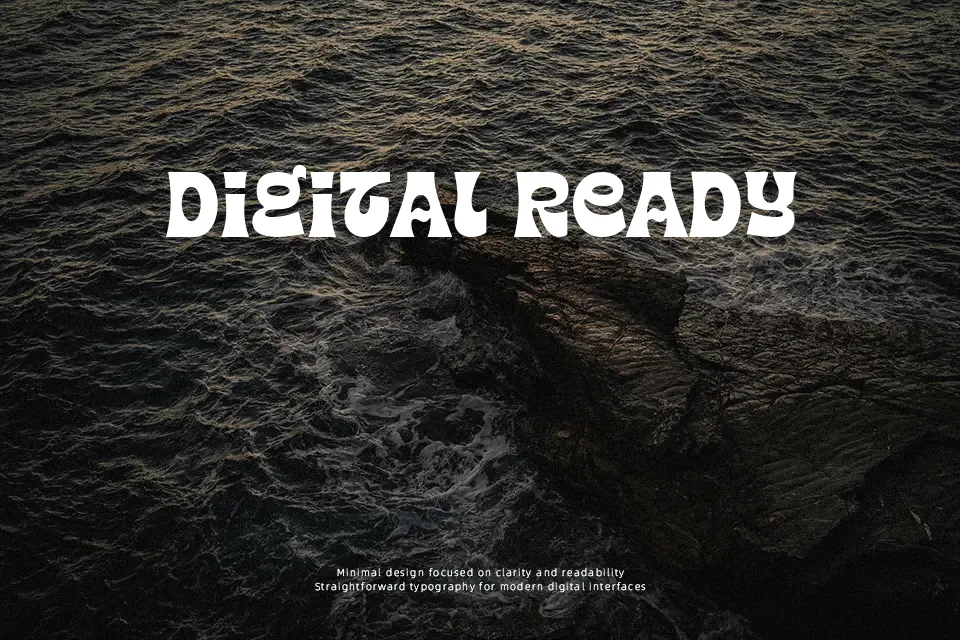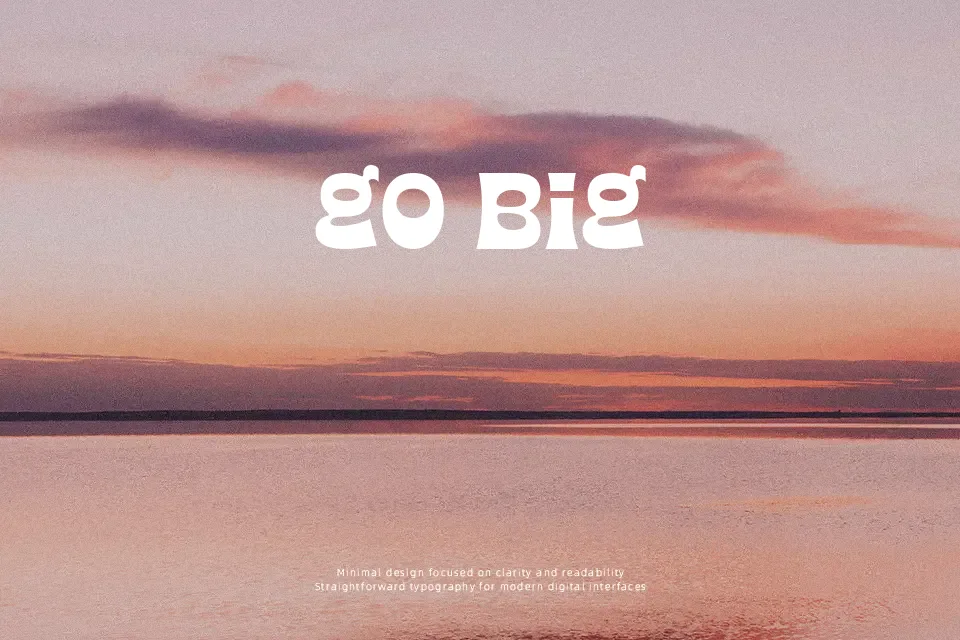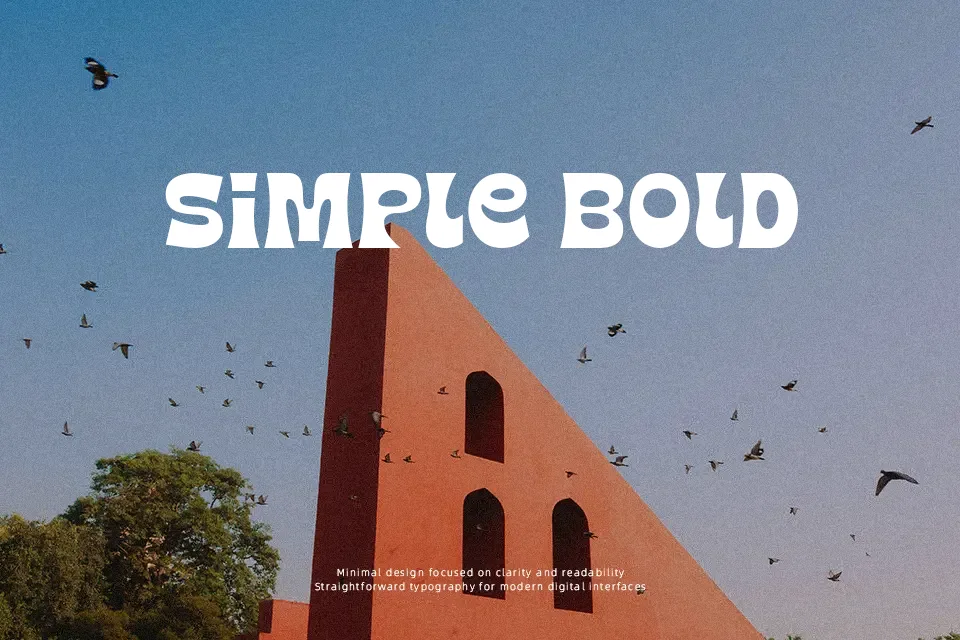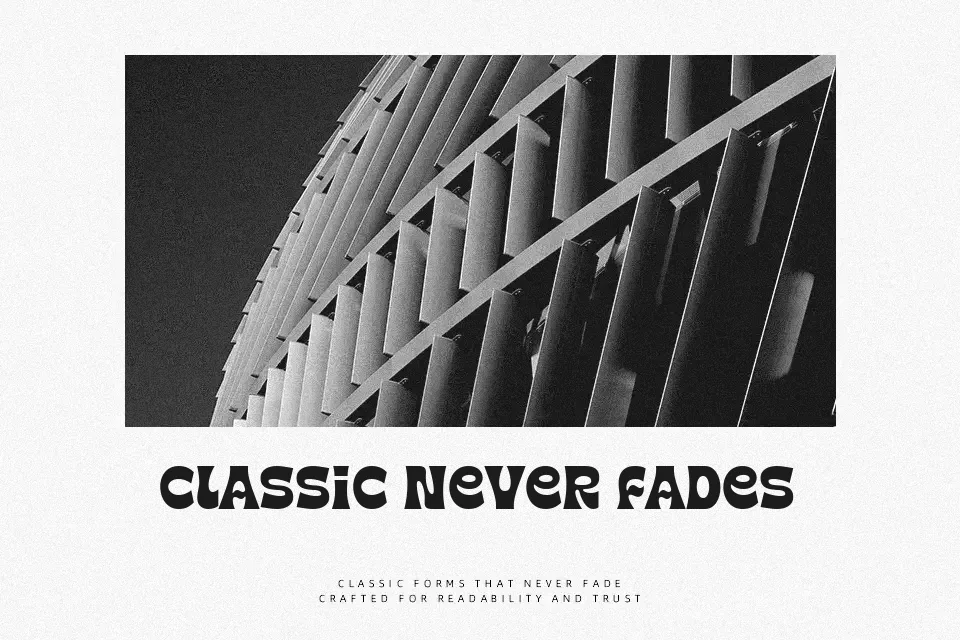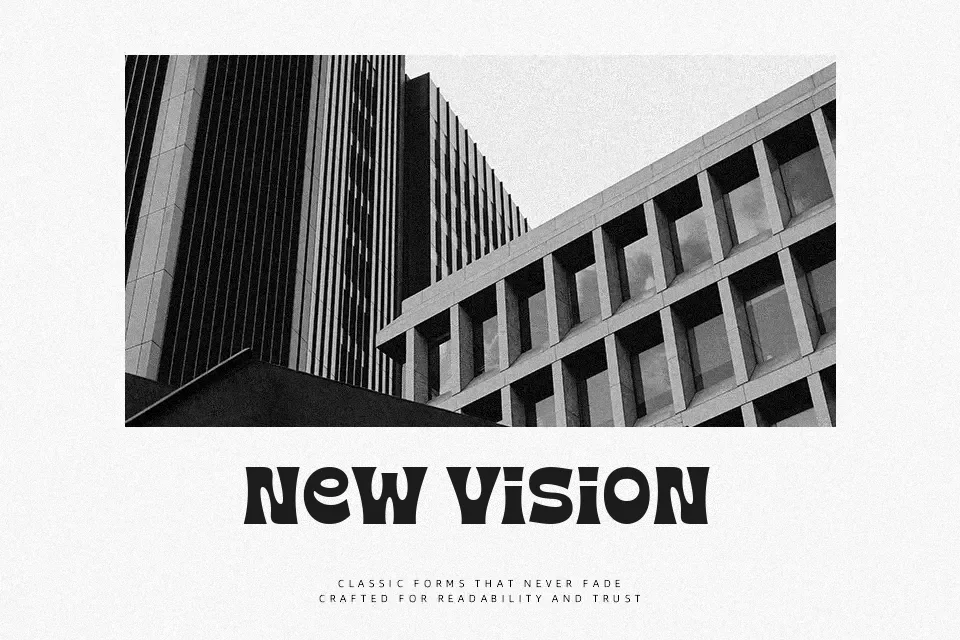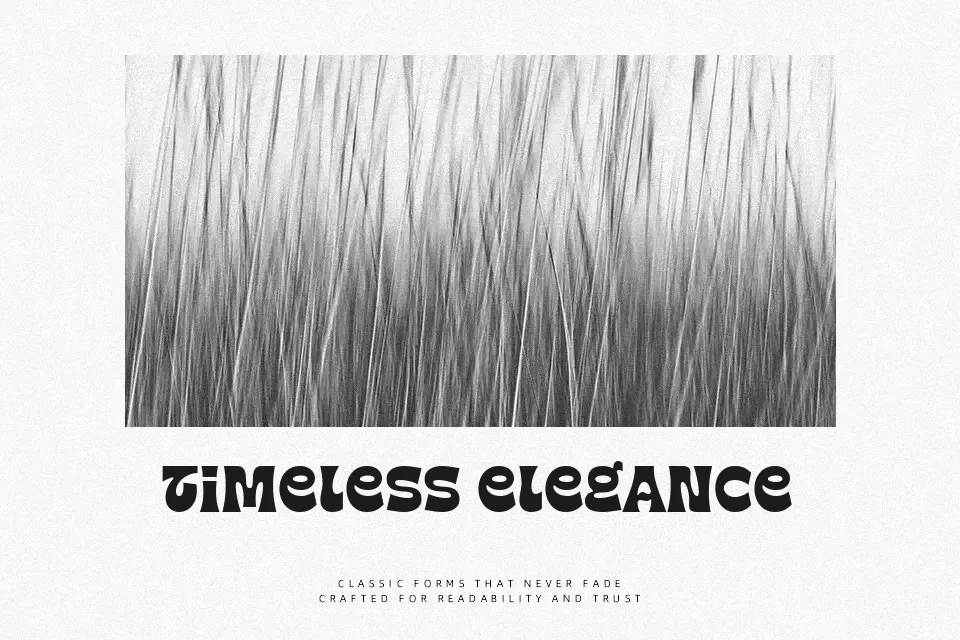
Stero Mont Font
Stero Mont Font features heavy stroke weights with fluid flared serifs and rounded teardrop terminals that establish an expressive seventies aesthetic. The letterforms exhibit pronounced stroke contrast and wide proportions, balanced by tight character spacing that keeps title arrangements visually cohesive. Generous counter spaces maintain glyph clarity when scaled up, making the typeface well suited for large merchandise prints, beverage labels, and event flyers. However, the exaggerated decorative flourishes and compact letter fit reduce overall reading comfort in dense editorial layouts. The robust terminals and curvaceous contours ensure outstanding display legibility, though the design loses definition when set in body text paragraphs.
Best For: vintage product packaging, retro merchandise graphics, event poster headlines, beverage can labels
Not Ideal For: continuous body text, legal documents, small mobile interface labels, dense editorial columns